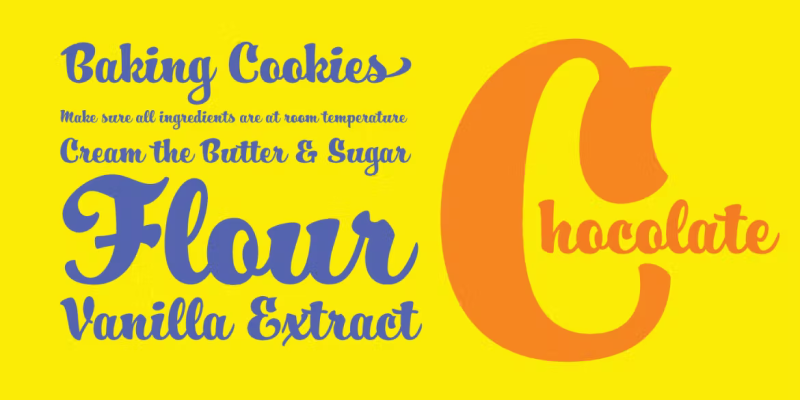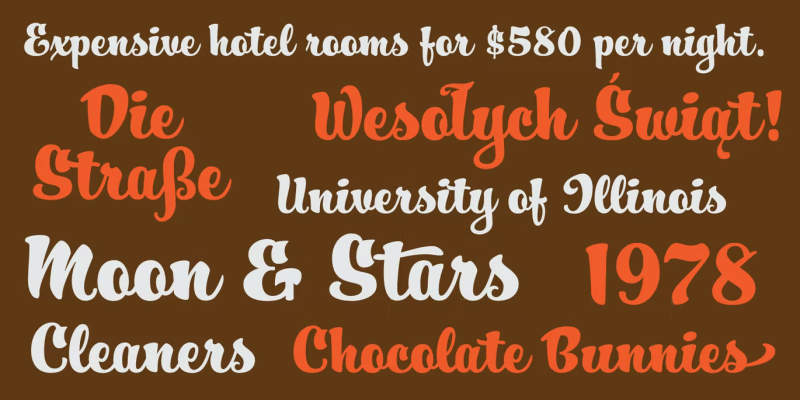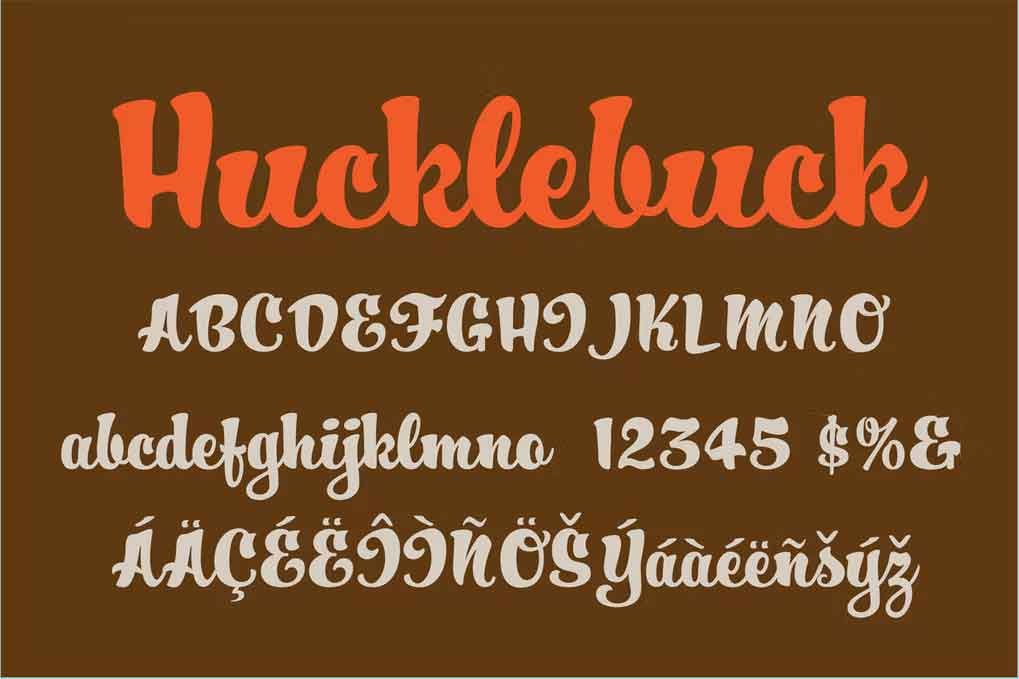
Hucklebuck Font
Hucklebuck is a retro, upright script font that is immensely appealing with its happy–go–lucky feel. Done in the style of hand painted sign lettering, the font was inspired by some window lettering on an old store near where I live. Hucklebuck was a pet name my mother used to call me when I was little (it’s actually a kind of dance).
Where Hucklebuck Font works best
Hucklebuck Font brings a personal, handwritten warmth to invitations, menus and place cards.
Craft brands — coffee, cosmetics, bakery — use scripts like Hucklebuck Font for signature-style logos and labels.
Pair Hucklebuck Font with a plain sans for quotes, stories and Pinterest pins that feel handmade.
What is Hucklebuck Font good for?